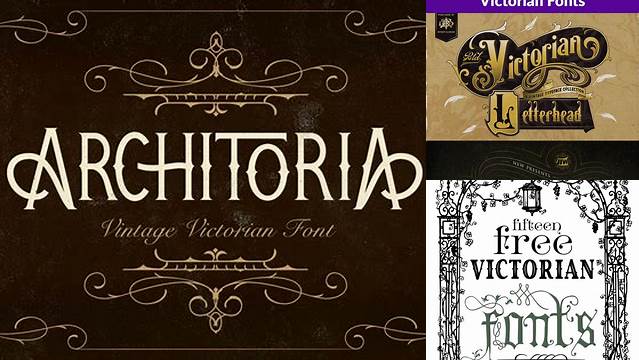
Hey guys! Are you looking to infuse your projects with a touch of vintage elegance? Look no further! Victorian fonts are the perfect way to capture the ornate and sophisticated spirit of the 19th century. This article will explore everything you need to know about finding and using these beautiful fonts, all while keeping it free and accessible. Let’s dive in!
Victorian Fonts: An Introduction
Victorian fonts are characterized by their intricate details, flourishes, and overall ornate design. They often feature elaborate serifs, dramatic contrasts between thick and thin strokes, and a sense of grandeur that evokes the Victorian era. These fonts aren't just letters; they're miniature works of art, each character meticulously crafted to contribute to the overall aesthetic. Victorian fonts are super versatile, making them an awesome option for anything from vintage-themed wedding invitations to adding a touch of class to your branding. The distinctive flair of these fonts can transform ordinary text into eye-catching designs that stand out. Because of their visual appeal, Victorian fonts are especially effective in projects that aim to capture attention and convey a sense of tradition, luxury, or timeless beauty. When choosing the right font, think about what you want your design to convey. Is it a sense of formal elegance, or perhaps a playful, vintage vibe? Consider how the font’s unique characteristics will enhance your overall message and make your project truly shine. These fonts are more than just a design choice; they're a statement, reflecting a meticulous attention to detail and a commitment to timeless aesthetics. By incorporating Victorian fonts into your work, you're not just using letters; you're embracing a rich artistic heritage that continues to inspire and captivate. So go ahead, give your projects that special touch of Victorian charm and watch them come to life with unparalleled grace and style.
Understanding Victorian Font Styles
Victorian fonts aren't a one-size-fits-all kind of thing; there's a whole spectrum of styles within this category! Understanding these styles can help you choose the perfect font for your specific project. Some Victorian fonts lean towards a more elegant and refined look, characterized by delicate serifs and balanced proportions. These are ideal for projects that require a touch of sophistication, such as wedding invitations or high-end branding. On the other hand, some Victorian fonts are bolder and more decorative, featuring elaborate swashes, flourishes, and intricate details. These are perfect for headlines, posters, and other designs that need to make a strong visual impact. You might also come across fonts that blend elements of both styles, offering a balance of elegance and ornamentation. These versatile fonts can work well in a variety of applications. To gain a better understanding of the different styles, take some time to browse through font libraries and examine the characteristics of each font. Pay attention to the shape of the serifs, the thickness of the strokes, and the overall level of ornamentation. Consider how each style would complement your design and convey your intended message. Remember, the goal is to choose a font that not only looks beautiful but also enhances the overall effectiveness of your project. By exploring the diverse world of Victorian font styles, you can discover the perfect typeface to bring your creative vision to life. So go ahead, experiment with different styles and find the one that speaks to you and your project. You might just stumble upon a hidden gem that takes your design to the next level!
Using Victorian Fonts in Graphic Design
Integrating Victorian fonts into your graphic design projects can add a unique and sophisticated touch, but it’s important to use them wisely. These fonts are so detailed and ornate, they can easily overwhelm a design if not handled carefully. One key tip is to use Victorian fonts sparingly, especially in body text. Because of their intricate designs, they can be difficult to read in large blocks of text. Instead, reserve them for headlines, logos, and other prominent elements where they can make a strong visual impact without sacrificing readability. When pairing Victorian fonts with other typefaces, opt for clean and simple sans-serif fonts to create a balance. This contrast can help the Victorian font stand out while maintaining overall clarity. Experiment with different font sizes and weights to find the perfect combination that works for your design. Consider the overall color palette as well. Victorian fonts often look best when paired with rich, saturated colors or muted, vintage-inspired tones. These colors can enhance the font's historical charm and create a cohesive visual experience. Another important consideration is the layout of your design. Victorian fonts typically require more space due to their elaborate details. Be sure to give them enough room to breathe so that they don't feel cramped or cluttered. Remember, the goal is to create a design that is both visually appealing and easy to understand. By using Victorian fonts thoughtfully and strategically, you can add a touch of timeless elegance to your graphic design projects and create a lasting impression on your audience. So go ahead, experiment with different techniques and discover how these beautiful fonts can elevate your designs to new heights.
Victorian Fonts for Wedding Invitations
Victorian fonts are a classic choice for wedding invitations, adding a touch of romance, elegance, and timeless beauty. These fonts evoke a sense of tradition and sophistication that perfectly complements the special occasion. When selecting a Victorian font for your wedding invitations, consider the overall style and theme of your wedding. If you're planning a formal, traditional affair, opt for a more refined and elegant font with delicate serifs and balanced proportions. For a more casual or vintage-inspired wedding, you can choose a bolder and more decorative font with elaborate swashes and flourishes. Think about the wording of your invitation as well. Victorian fonts often look best when paired with formal, elegant language. Use phrases like "request the honor of your presence" or "joyfully announce" to complement the font's sophisticated style. When printing your wedding invitations, choose high-quality paper and printing techniques to enhance the font's beauty. Embossing, letterpress, and foil stamping can add a luxurious touch and make your invitations truly stand out. Consider the overall color scheme as well. Victorian fonts often look stunning when paired with classic wedding colors like gold, silver, ivory, and blush pink. These colors can enhance the font's romantic appeal and create a cohesive visual experience. Don't forget to pay attention to the details, such as the envelope and RSVP cards. Use the same font or a complementary typeface to create a consistent and polished look. You can also add decorative elements, such as monograms, crests, or floral motifs, to enhance the Victorian theme. By using Victorian fonts thoughtfully and paying attention to the details, you can create wedding invitations that are as beautiful and unforgettable as your special day. So go ahead, embrace the timeless elegance of Victorian fonts and create invitations that will be cherished for years to come.
Creating a Vintage Look with Victorian Fonts
Want to give your designs a cool, vintage vibe? Victorian fonts are your best bet! Their ornate details and classic style instantly transport your project back in time. But just slapping a Victorian font on something isn't enough; you've gotta use them right to nail that vintage look. Start by choosing a font that fits the era you're going for. Some are super elegant, while others are more rugged and industrial. Think about the overall feel you want to create. Next, play around with colors. Muted, faded tones like sepia, cream, and dusty blues work wonders with Victorian fonts. These colors give your design an aged, authentic feel. Texture is your friend! Add subtle textures like paper grain or distressed patterns to enhance the vintage effect. Overlays and filters in Photoshop can help achieve this look. Don't forget the details. Incorporate vintage-inspired graphics like old photographs, illustrations, and decorative borders. These elements add depth and visual interest to your design. When using Victorian fonts in headlines or titles, consider adding a subtle drop shadow or glow to make them pop. This technique can add dimension and visual appeal. Pay attention to spacing. Vintage designs often have more generous letter spacing and line height. Experiment with different settings to find what looks best. Finally, remember that less is often more. Avoid cluttering your design with too many elements. Let the Victorian font be the star of the show, and use other elements sparingly to support its vintage charm. By following these tips, you can create designs that capture the essence of the past and leave a lasting impression on your audience.
Pairing Victorian Fonts with Modern Designs
Okay, so Victorian fonts are all about that old-school charm, but guess what? You can totally mix them with modern designs for a killer, unique look! The trick is to find the right balance. You don't want your design to look like a history project gone wrong. Instead, aim for a cool blend of classic and contemporary. One way to achieve this is by using a Victorian font for a key element, like a logo or headline, and pairing it with a clean, modern sans-serif font for the body text. This creates a striking contrast that draws the eye and makes your design pop. Think about color too! Bright, modern colors can add a fresh twist to Victorian fonts. Don't be afraid to experiment with unexpected combinations. For example, a bold, electric blue paired with a Victorian-style font can create a visually stunning effect. Incorporate modern graphic elements like geometric shapes, abstract patterns, or minimalist illustrations to further enhance the contrast. These elements can add a contemporary edge to your design and create a sense of visual tension. When using Victorian fonts in a modern context, consider simplifying the font's details. Removing some of the elaborate swashes and flourishes can make it feel more contemporary and less overwhelming. Pay attention to spacing and layout. Modern designs often feature generous white space and clean, uncluttered layouts. Use these principles to create a visually appealing and balanced composition. Finally, remember that experimentation is key. Don't be afraid to try new things and push the boundaries of what's possible. By combining Victorian fonts with modern design elements, you can create designs that are both timeless and cutting-edge.
Victorian Fonts for Logos and Branding
Using Victorian fonts for logos and branding can give your business a sophisticated and timeless appeal. These fonts convey a sense of tradition, quality, and attention to detail, making them ideal for brands that want to project an image of elegance and refinement. When choosing a Victorian font for your logo, consider your brand's personality and target audience. If you're targeting a high-end clientele, opt for a more refined and elegant font with delicate serifs and balanced proportions. For a more rustic or vintage-inspired brand, you can choose a bolder and more decorative font with elaborate swashes and flourishes. Think about the overall design of your logo as well. Victorian fonts often work best when paired with simple, minimalist graphics. This creates a contrast that allows the font to stand out and makes your logo more memorable. When using Victorian fonts in your branding materials, such as business cards and website headers, be consistent with your font choices. This will help create a cohesive and recognizable brand identity. Consider the colors you use as well. Victorian fonts often look best when paired with rich, saturated colors or muted, vintage-inspired tones. These colors can enhance the font's historical charm and create a cohesive visual experience. Don't forget to pay attention to the details, such as the kerning and letter spacing. Proper kerning can make a big difference in the overall appearance of your logo and branding materials. Finally, remember that your logo is more than just a pretty font. It's a visual representation of your brand's values and personality. By using Victorian fonts thoughtfully and strategically, you can create a logo that is both beautiful and effective.
Free Victorian Font Alternatives
Okay, so maybe you're digging that Victorian font vibe but can't find exactly what you need for free. No sweat! There are tons of awesome alternatives out there that capture that vintage feel without costing you a dime. Think about fonts with strong serifs and elegant curves. These can give you a similar look without being a direct copy of a Victorian typeface. Fonts like Lora, Playfair Display, and Libre Baskerville are great starting points. They have that classic, refined quality that's perfect for adding a touch of sophistication to your designs. Another option is to look for fonts that are inspired by the Victorian era but have a more modern twist. These fonts often feature simplified details and cleaner lines, making them more versatile and easier to use in a variety of contexts. Check out fonts like Oswald or Montserrat. You can also try combining different fonts to create a unique and interesting look. For example, you could pair a serif font with a sans-serif font to create a contrast that's both eye-catching and readable. The key is to experiment and have fun! When choosing free font alternatives, always pay attention to the licensing terms. Make sure the font is free for both personal and commercial use, especially if you're planning to use it in a project that you're selling. It's also a good idea to download fonts from reputable sources to avoid any potential security risks. Websites like Google Fonts, DaFont, and FontSpace are all great places to find high-quality free fonts. Finally, remember that the best font is the one that works best for your project. Don't be afraid to try different fonts and see what looks good. With a little bit of experimentation, you're sure to find the perfect font to bring your creative vision to life.
Victorian Font Inspiration: Where to Find Ideas
Need a spark of creativity? Looking for cool ways to use Victorian fonts? Inspiration is everywhere, guys! Start by diving into the Victorian era itself. Check out old books, posters, and advertisements from the 1800s. You'll find tons of examples of how Victorian fonts were used back in the day. Museums and historical societies are also great resources. Many of them have online collections that you can browse from the comfort of your own home. Look for examples of typography, graphic design, and decorative arts. Websites like Pinterest and Behance are goldmines for design inspiration. Search for